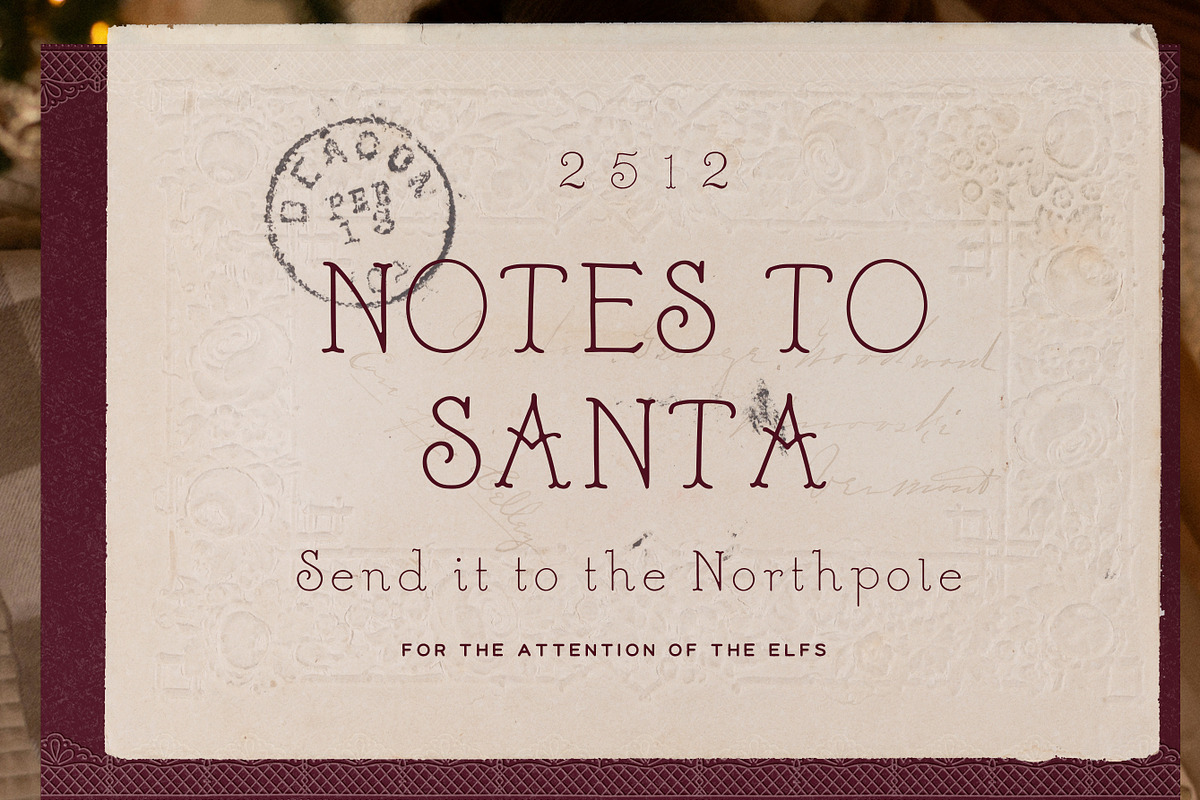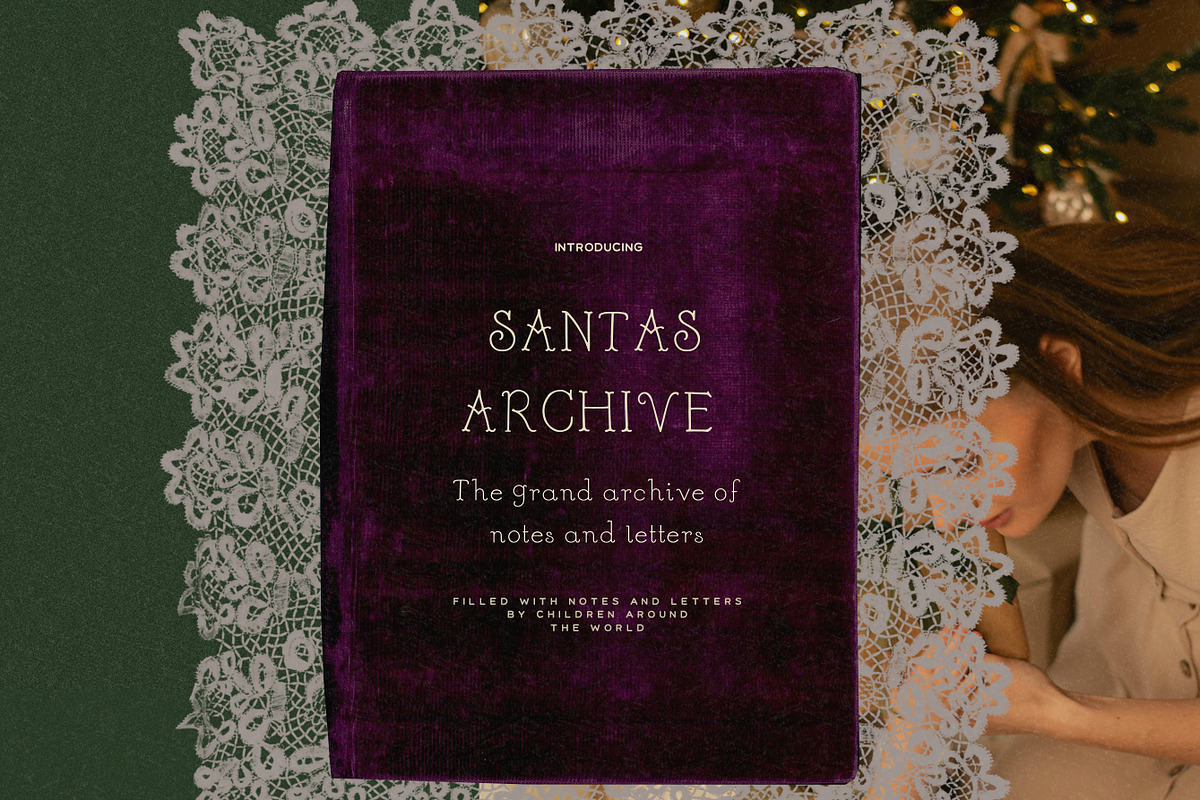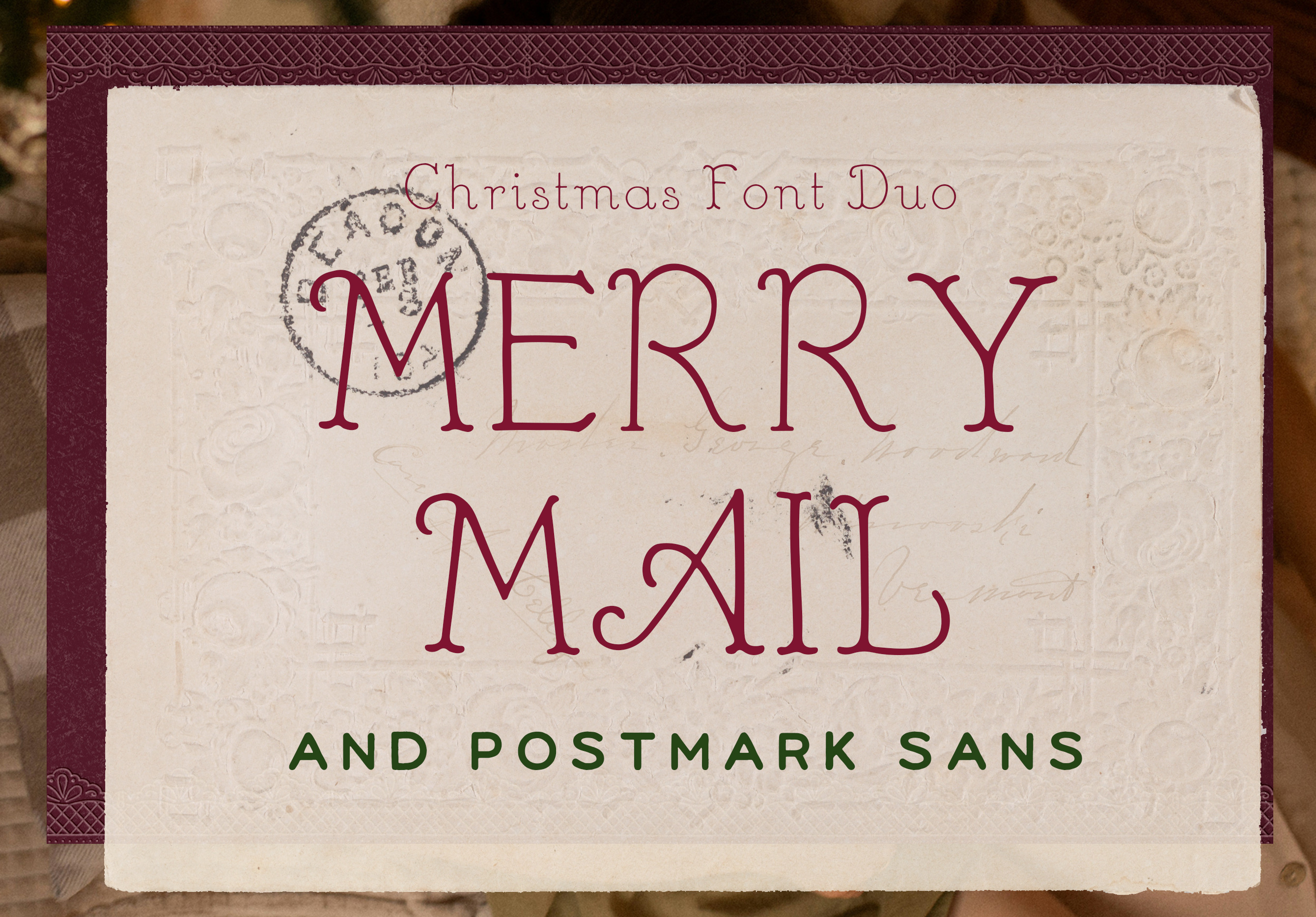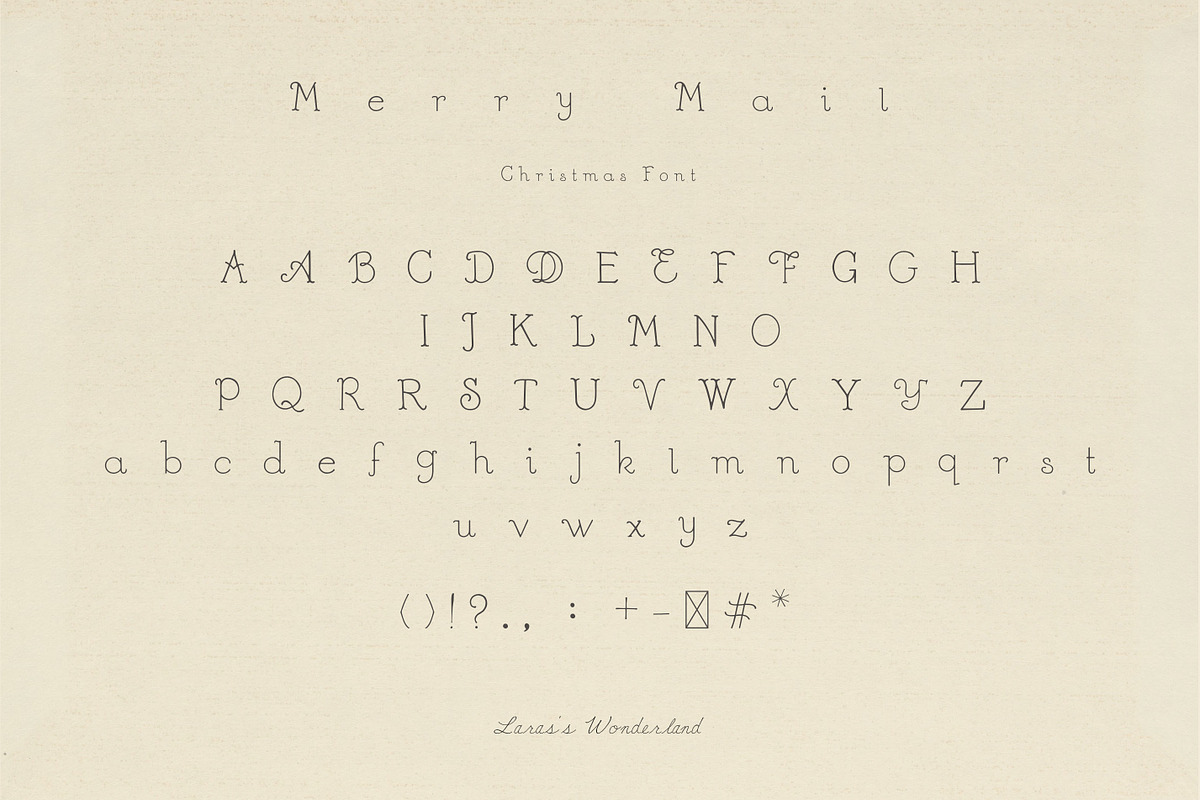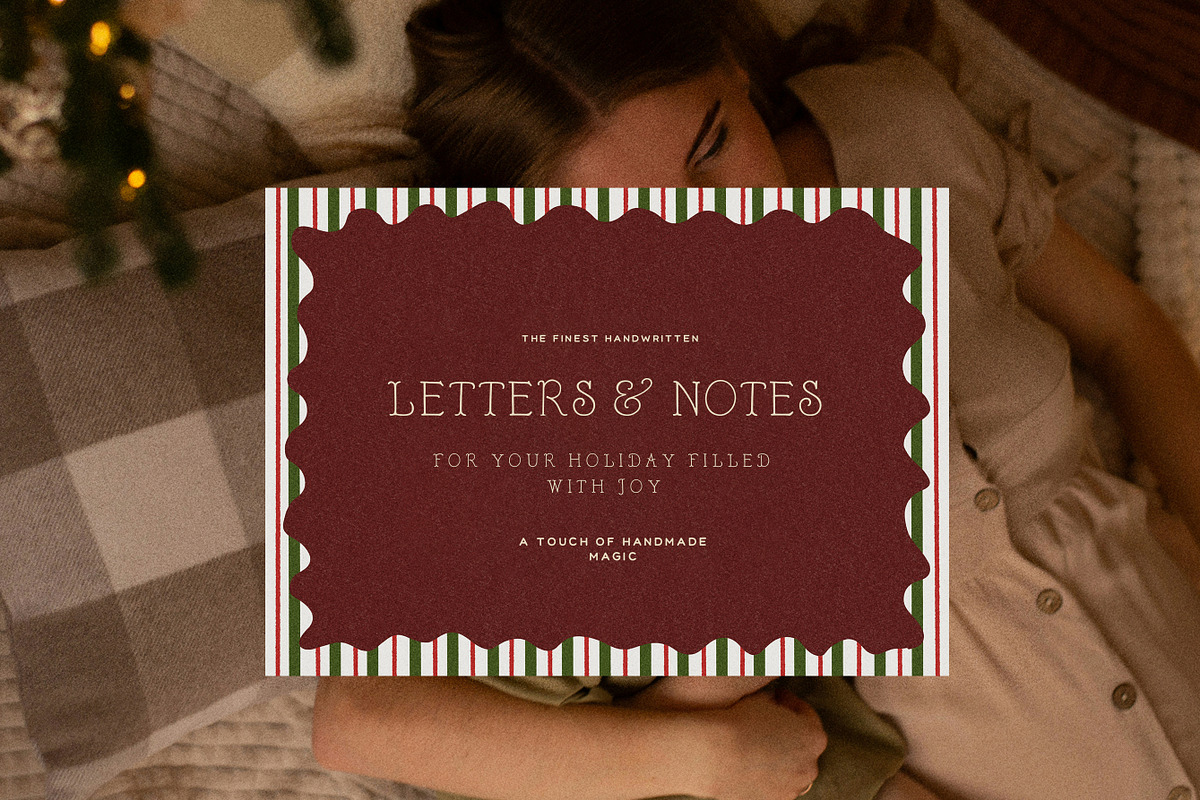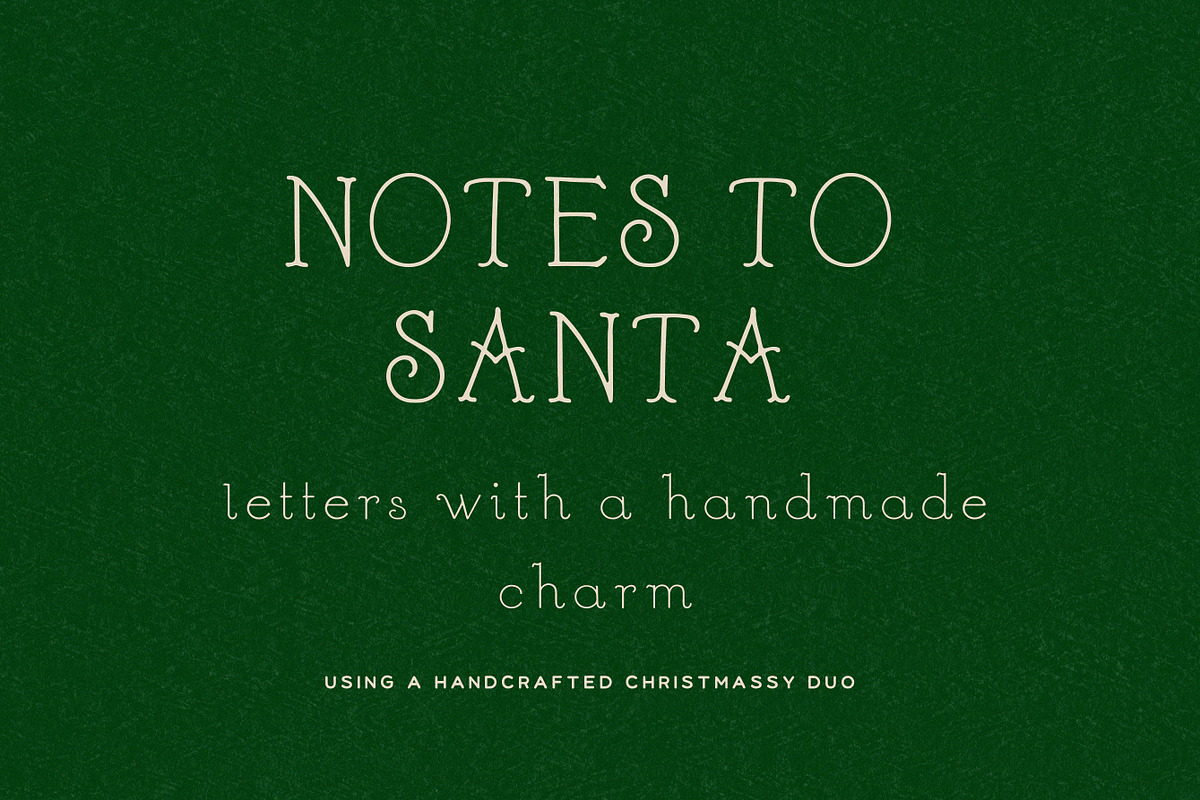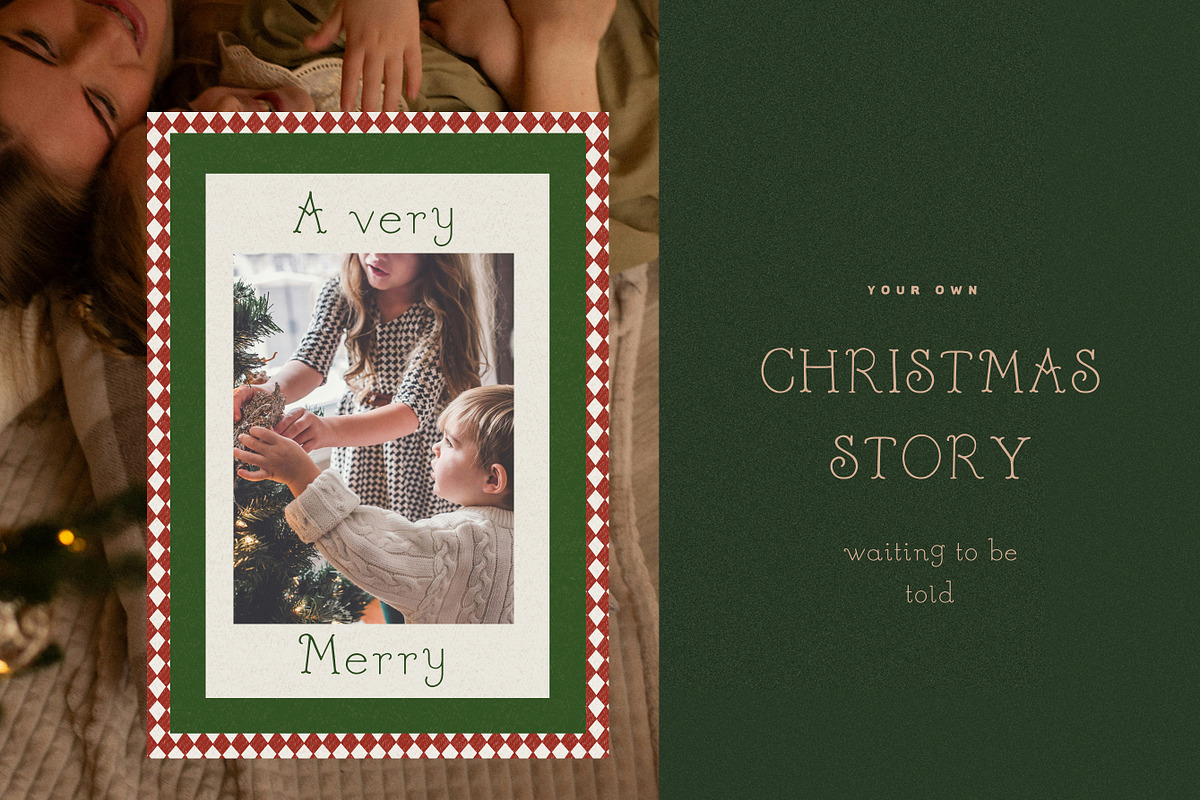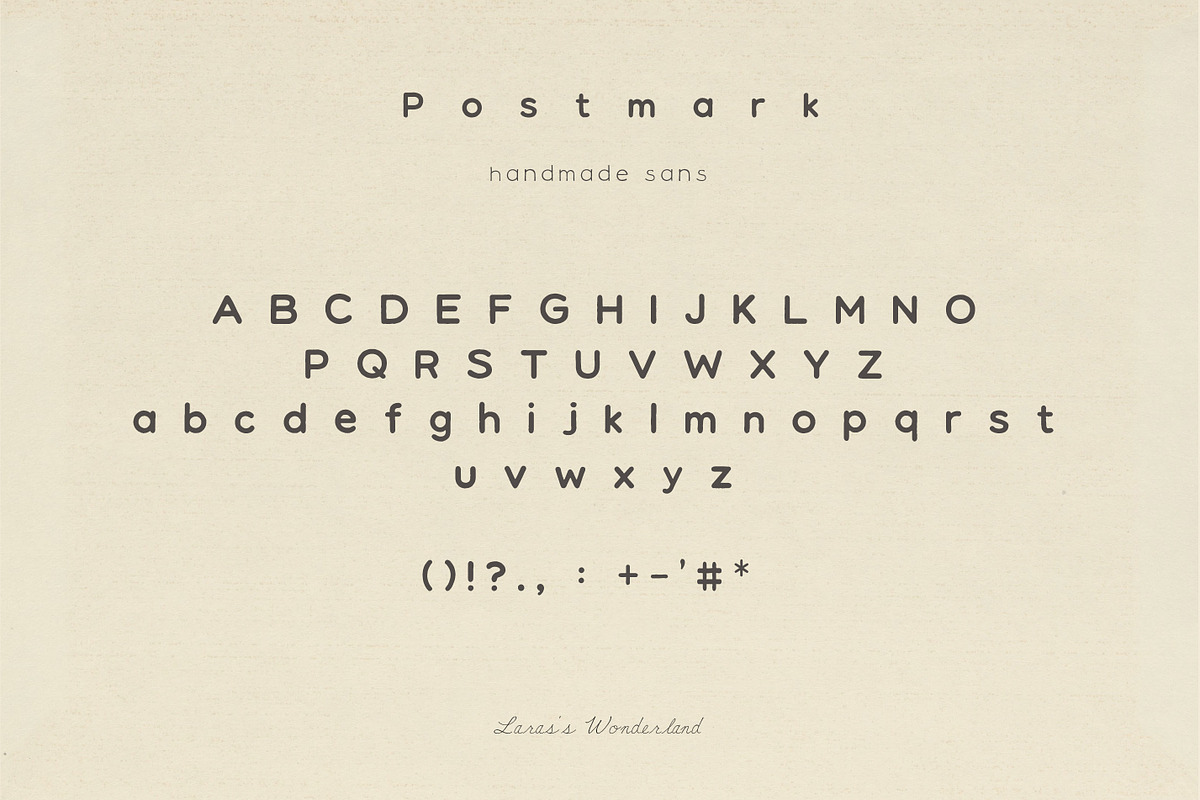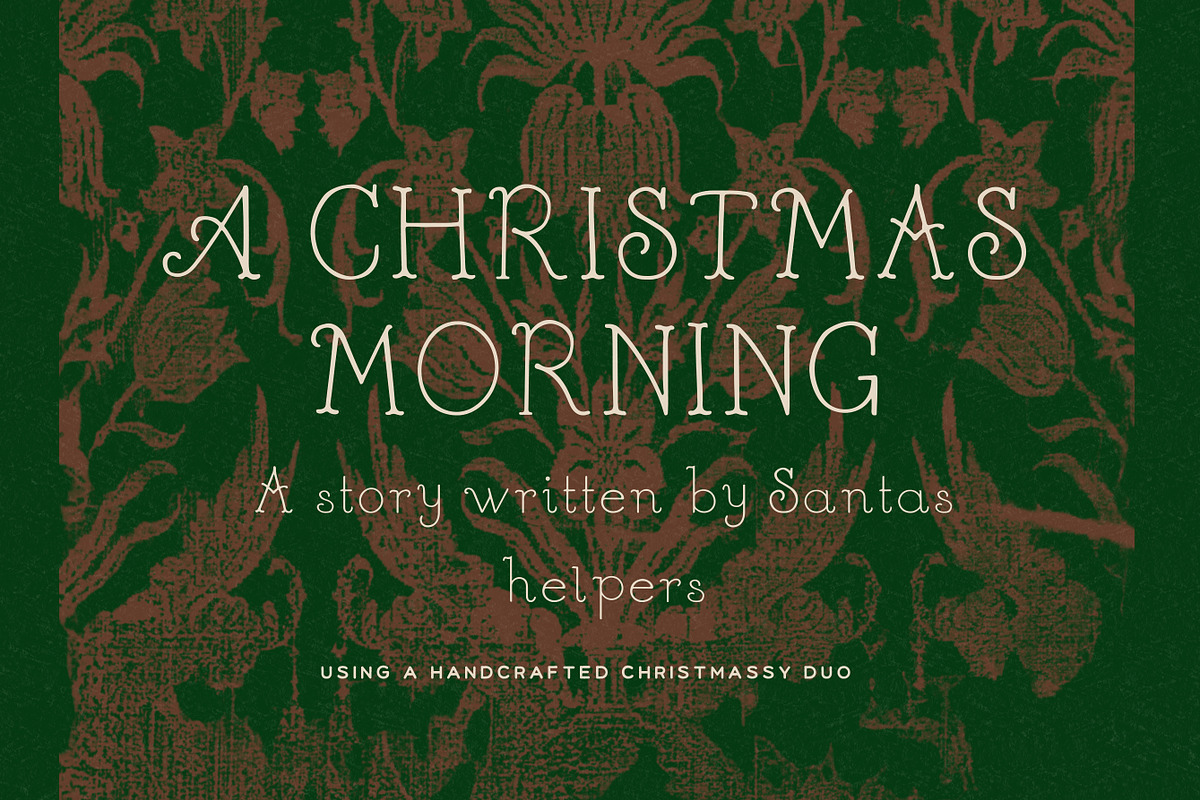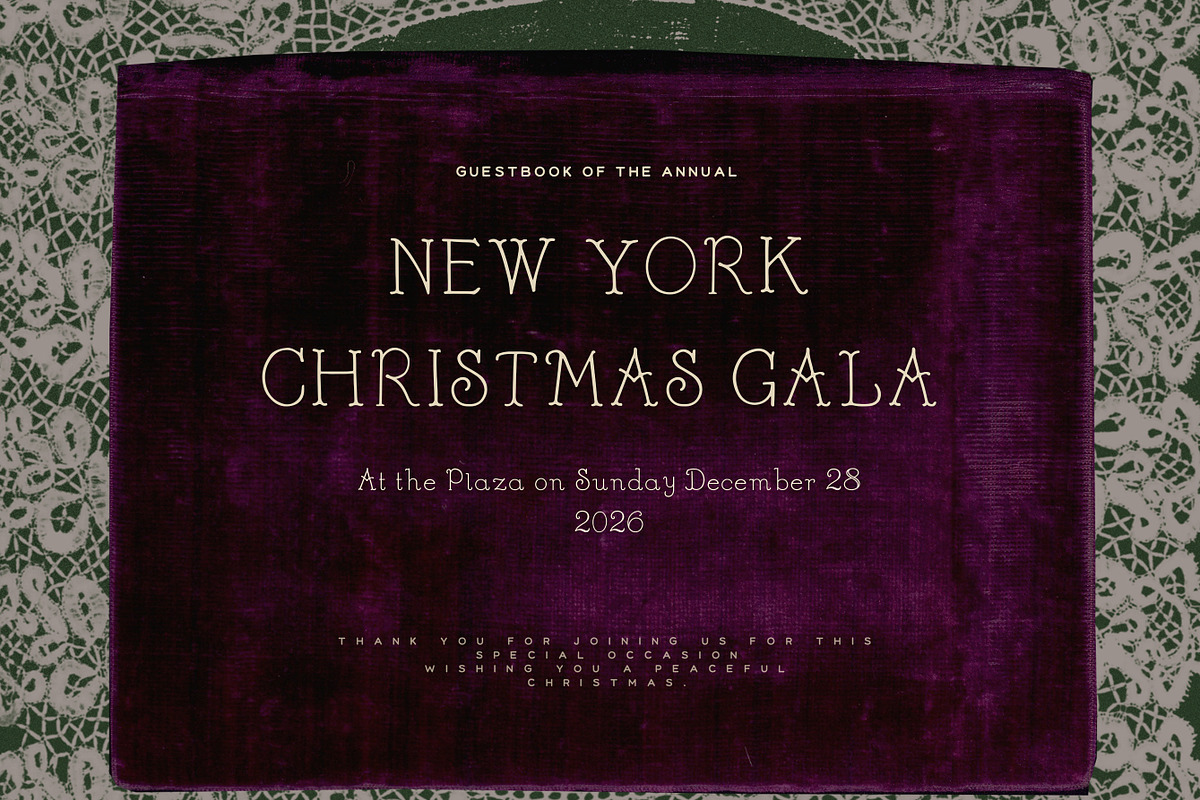
Handmade Vintage Christmas Font Duo
Bring the magic of handwritten Christmas letters to your designs with Merry Mail & Postmark, a festive font duo inspired by cozy nights, candlelight, and the joy of sending holiday greetings.
Merry Mail is a handwritten script full of warmth and charm, perfect for Christmas cards, gift tags, invitations, and cozy winter branding. Postmark, its bold handwritten companion, adds the perfect contrast for headlines, stamps, and packaging details. For your perfect vintage Christmas, traditional Holiday and modern Scandinavian festivity.